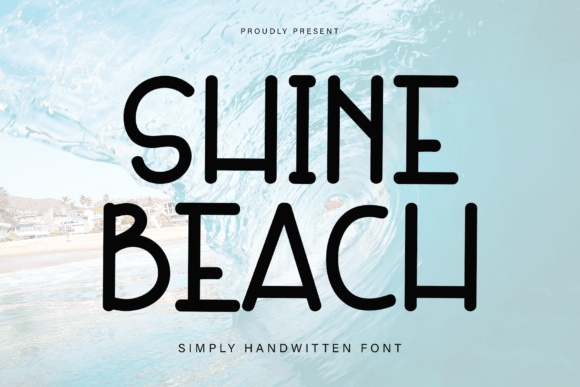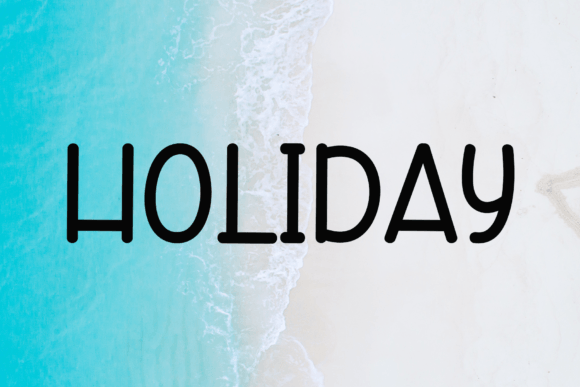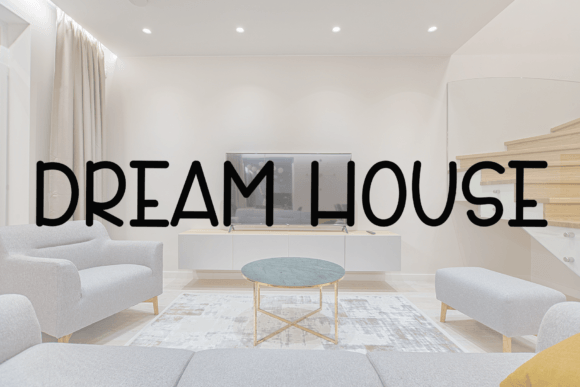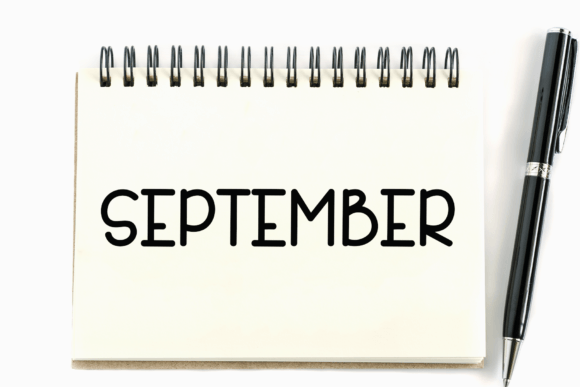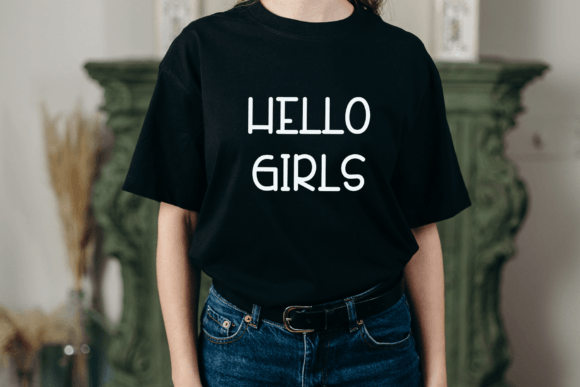
About Shine Beach Font
**Shine Beach: A Cool and Modern Handwritten Font**
Introducing **Shine Beach**, a font that exudes a cool and modern vibe with its contemporary handwritten style. Incredibly versatile, this font is a fantastic choice for a wide range of design ideas, making it a go-to option for your creative projects.
**Shine Beach** stands out with its clean and sleek letterforms, capturing the essence of modernity and coolness. Its adaptability allows it to complement a diverse array of design concepts, ensuring it can effortlessly elevate your work.
Whether you’re working on branding, social media posts, advertising materials, website design, or any other creative endeavor, **Shine Beach** proves to be a reliable and stylish choice.
For branding projects, this font brings a touch of modernity and trendiness to your visual identity. It helps your brand establish a contemporary and fresh image, appealing to a wide audience.
On social media platforms, **Shine Beach** ensures your posts have a clean and modern appearance, helping your content stand out in the digital landscape.
In conclusion, **Shine Beach** is more than just a font; it’s a design asset that adds a cool and modern touch to your creative projects. Whether you’re designing for branding, digital marketing, or any other context, confidently incorporate **Shine Beach** to infuse your work with its contemporary style and make a lasting impression. Embrace its sleek and modern charm, and let your creativity shine.